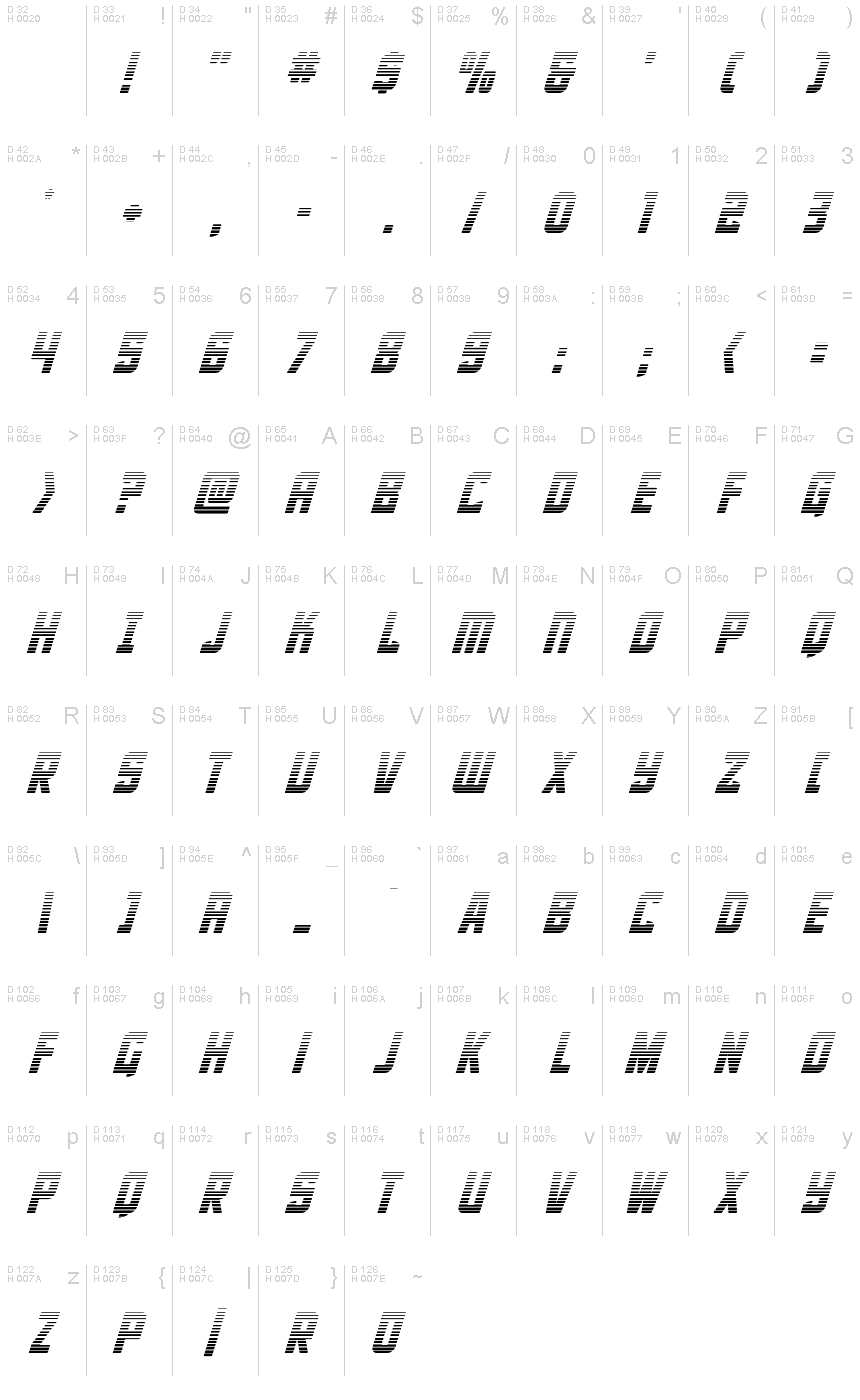
Phantom Storm Gradient Italic
Phantom Storm Gradient Italic is a visually striking display font that boasts a futuristic, techno-inspired style. Designed by Iconian Fonts, this semi-bold typeface features an extra-condensed width that adds an edgy and modern touch to any project. Its gradient effect creates a unique 3D illusion that adds depth and dimension to your designs. The Phantom Storm Gradient Italic font is perfect for bold headlines, striking logos, and attention-grabbing posters. Use it for any project where you want to make a statement with your typography – from cutting-edge tech products to high-energy sports events or music festivals.